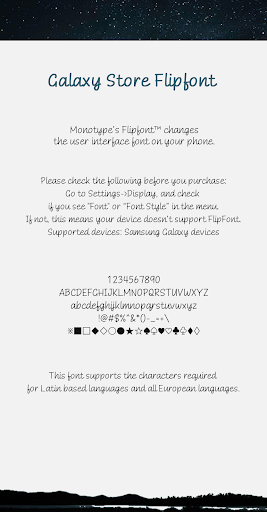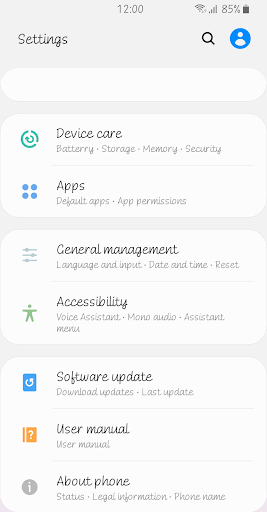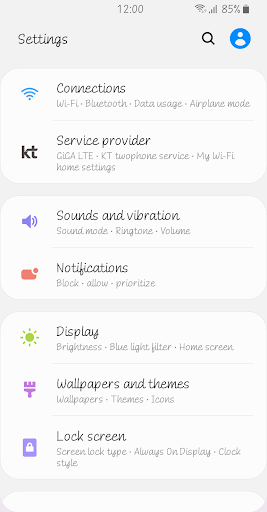
ZF Midnight
This is a handwriting style font that feels like a quick hand movement.
The even weight and stroke are enough to convey a serious message.
The comfortable writing and unadorned form also show the perfect posture optimised for mobile devices.